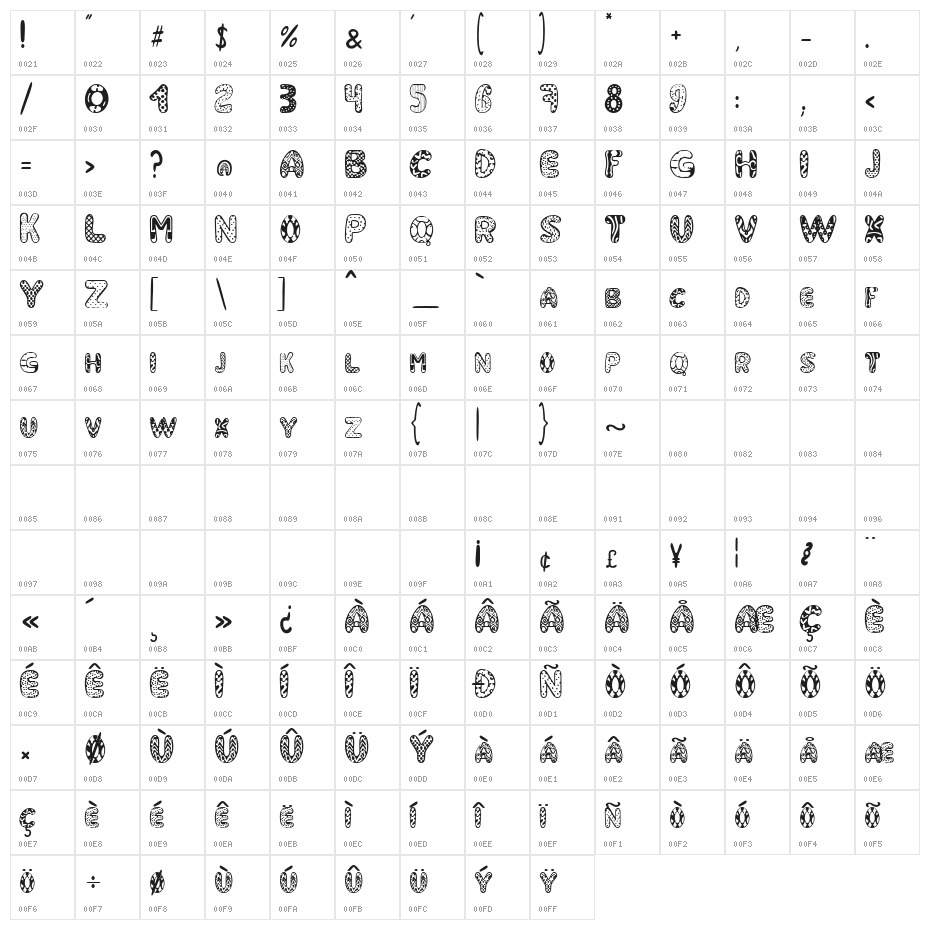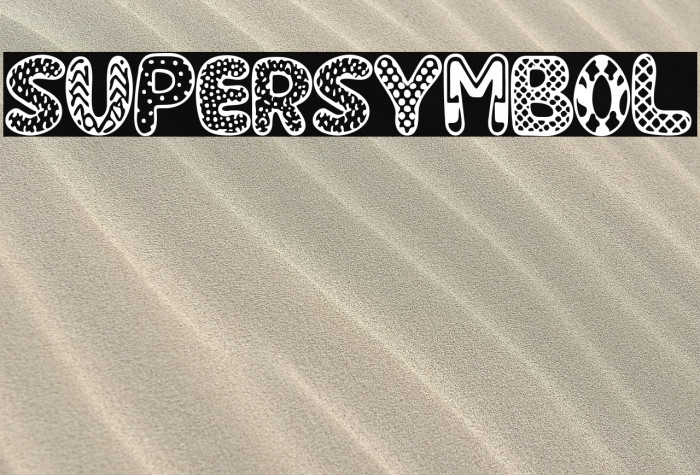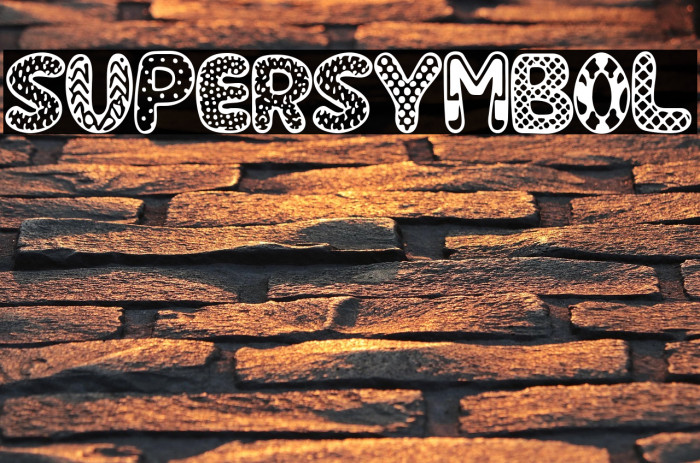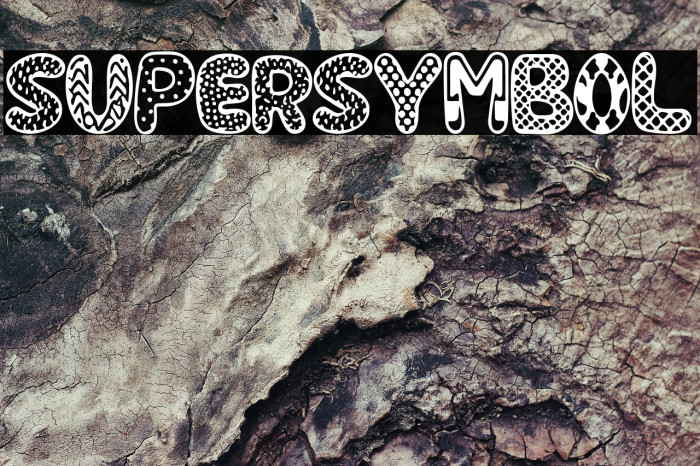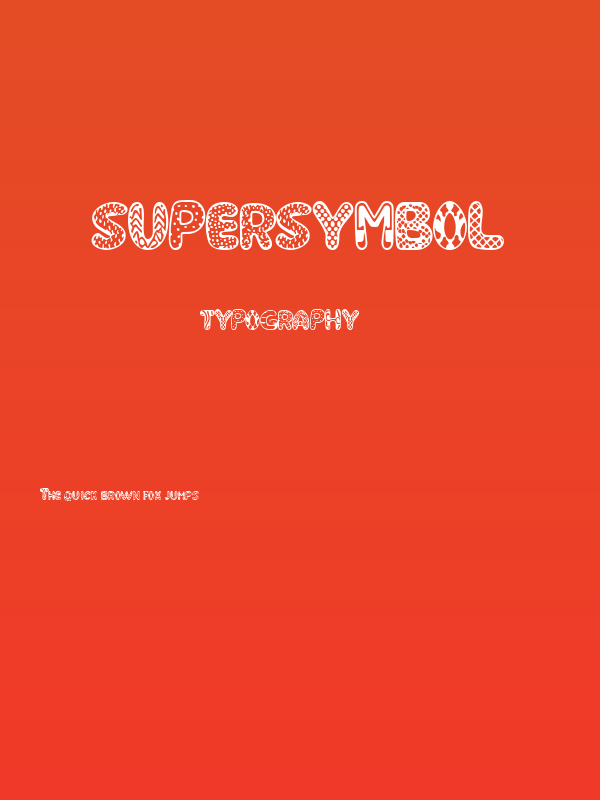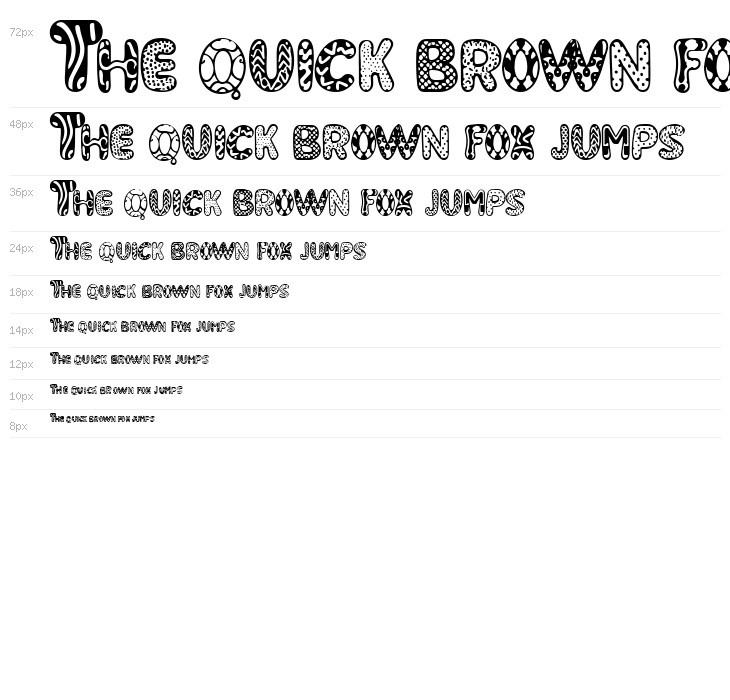
SUPERSYMBOL Font
SUPERSYMBOL Description
This font is a playful and bold decorative style, featuring a variety of patterns within each character. The letters are filled with dots, stripes, and abstract shapes, creating a vibrant and dynamic appearance. Each character is uniquely designed, making it stand out with its artistic flair. The font is perfect for projects that require a fun and eye-catching look, such as children's books, posters, or party invitations. Its whimsical nature and bold presence make it ideal for creative and informal settings.
| Proposed Projects | Ideal for children's books, posters, party invitations, and creative designs. |